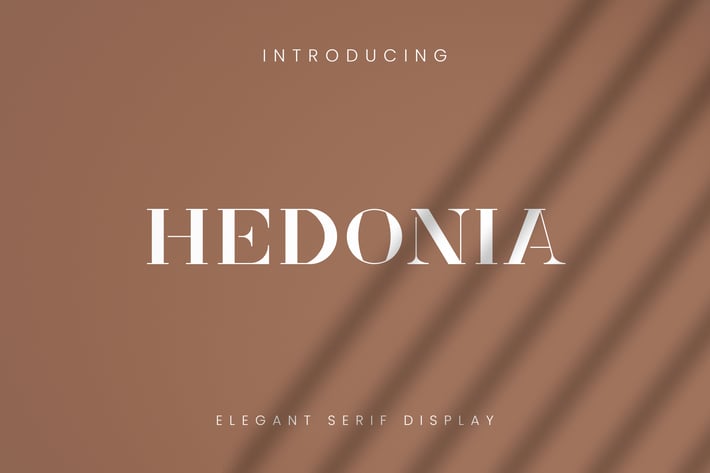
Hedonia Serif Font
Introducing Hedonia font. Hedonia is an elegant serif display made with modern, luxurious, visual elegance, made with precision and measured.
It's perfect for logos & branding, quotes, photography, invitations, advertisements, product designs, stationery, wedding designs, labels, product packaging, and much more.